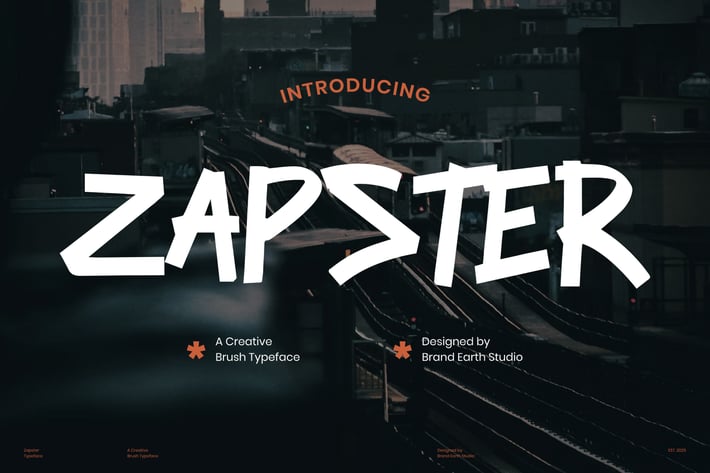
Zapster Creative Brush Font
Zapster is a high-energy brush typeface that exudes raw street style and urban dynamism. With its sharp angles, bold strokes, and graffiti-inspired design, Zapster captures the essence of edgy creativity and rebellious spirit. Perfect for branding, posters, apparel, music covers, and streetwear graphics, this font injects personality and movement into any project. Whether you're crafting an eye-catching headline or a modern urban design, Zapster brings a striking, unconventional touch that stands out.